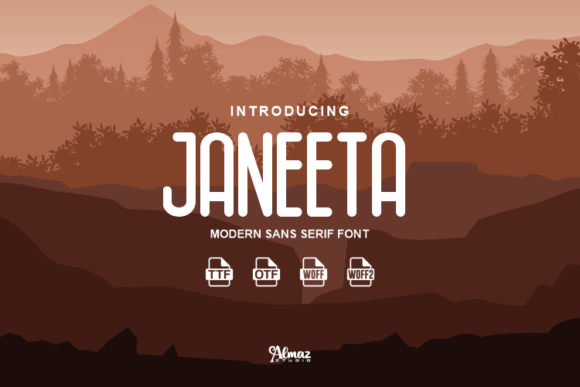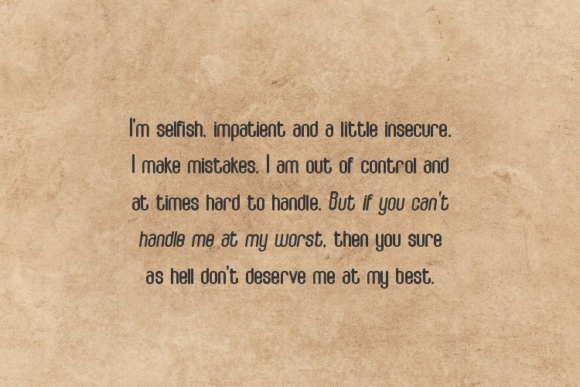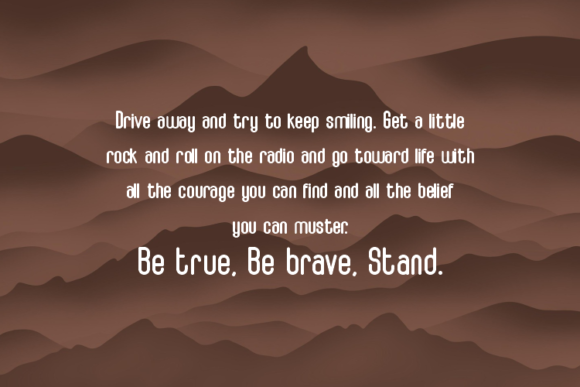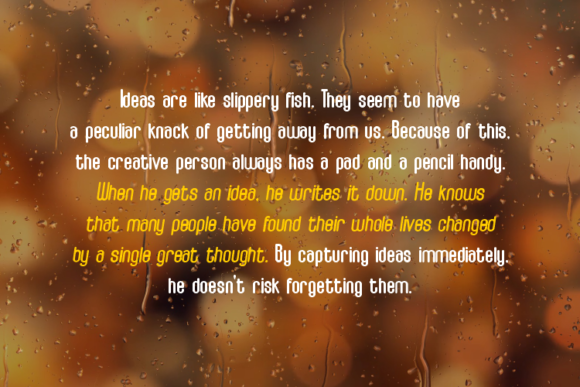
The Perfect Font for Your Next Masterpiece: Janeeta Font
Have you ever stared at a blank canvas, wondering what kind of magic you can create with just a few strokes of your pen or a few clicks of your mouse? That’s where the right font comes in – the difference between a good design and a great one. For many designers, finding the perfect font is like searching for the holy grail of creativity.
Enter Janeeta Font, a modern display font that’s sure to elevate your next project. Whether you’re working on a branding campaign, a website, or a social media graphic, Janeeta Font has the versatility to bring your vision to life. With its sleek and sophisticated design, this font is a valuable asset to any designer’s library, offering endless possibilities for creative expression.
So why is Janeeta Font so valuable for designers? Its clean lines, elegant curves, and modern feel make it an ideal choice for any project, from corporate to creative. Whether you’re a seasoned pro or just starting out, Janeeta Font is a must-have for anyone looking to take their designs to the next level.
Janeeta Font Key Features
- Font Family: Janeeta Font is a sans-serif font family.
- Character Set: Supports a wide range of languages, including Latin, Greek, Cyrillic, and more.
- Font Size and Resolution: Available in various sizes, with a recommended resolution of 300 DPI for optimal legibility.
- Unique Characteristics: Features a clean, modern design with subtle rounded corners and a friendly feel.
- Font Size: Available in 5 different weights: Light, Regular, Medium, Bold, and Black.
Designer Review: Janeeta Font
As a designer, I was excited to dive into the Janeeta Font and see what it had to offer. The first thing that caught my attention was the ✨ unique, elegant feel of the font. It’s perfect for creating a sophisticated and professional look for your designs. The font’s clean lines and subtle flourishes make it a great choice for both print and digital projects.
Here are some of the things that work well with the Janeeta Font:
- ✨ Elegant, sophisticated feel
- ✨ Great for both print and digital projects
- ✨ Clean lines and subtle flourishes
- ✨ Perfect for creating a professional look
However, there are some limitations to the Janeeta Font that I’d like to mention:
- ⚠️ Limited font sizes available
- ⚠️ Not suitable for bold, eye-catching headlines
- ⚠️ May not be the best choice for projects with a lot of text
Overall, I’d say that the Janeeta Font is a solid choice for designers looking to create a professional and elegant look. While it may have some limitations, it’s definitely worth considering for the right projects. With a little creativity and experimentation, you can get the most out of this versatile font.
Janeeta Font is ideal for creating elegant and sophisticated designs. Use it for:
- Luxury branding and marketing materials
- High-end website design and e-commerce platforms
Remember to experiment with different font sizes, colors, and styles to get the most out of Janeeta Font.
Alternatives to Janeeta Font for Designers
Lato is a modern sans-serif font designed by Łukasz Dziedzic. It is suitable for use in digital products, advertising, and editorial content. Lato is clean, elegant, and highly legible, making it an excellent choice for body text and headings.
Compared to Janeeta Font, Lato has a more modern and minimalist design, which makes it more suitable for contemporary digital products. While Janeeta Font has a unique, elegant feel, Lato is more versatile and can be used in a wide range of applications.
Open Sans is a popular sans-serif font designed by Steve Matteson. It is highly legible and suitable for use in digital products, including websites, mobile apps, and e-books. Open Sans is clean, modern, and highly versatile, making it an excellent choice for body text and headings.
Compared to Janeeta Font, Open Sans has a more neutral and clean design, which makes it more suitable for use in digital products with a minimalist aesthetic. While Janeeta Font has a unique, elegant feel, Open Sans is more functional and can be used in a wide range of applications.